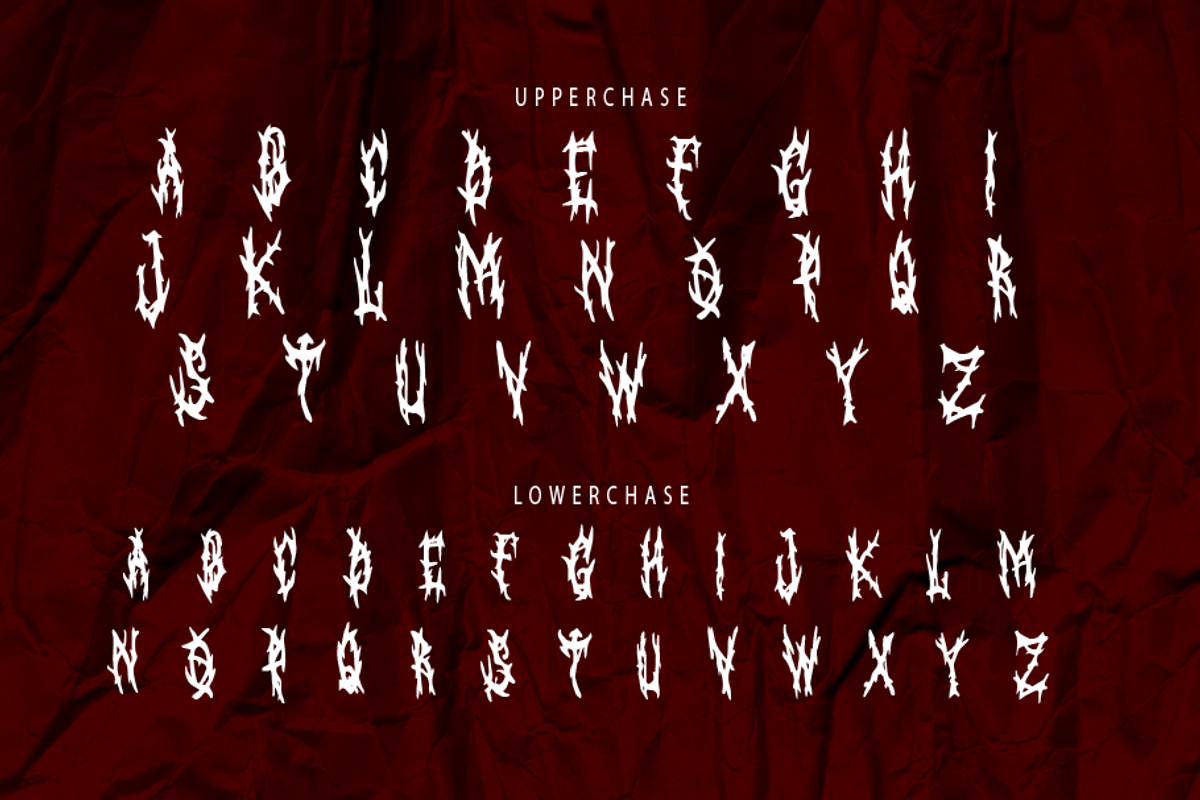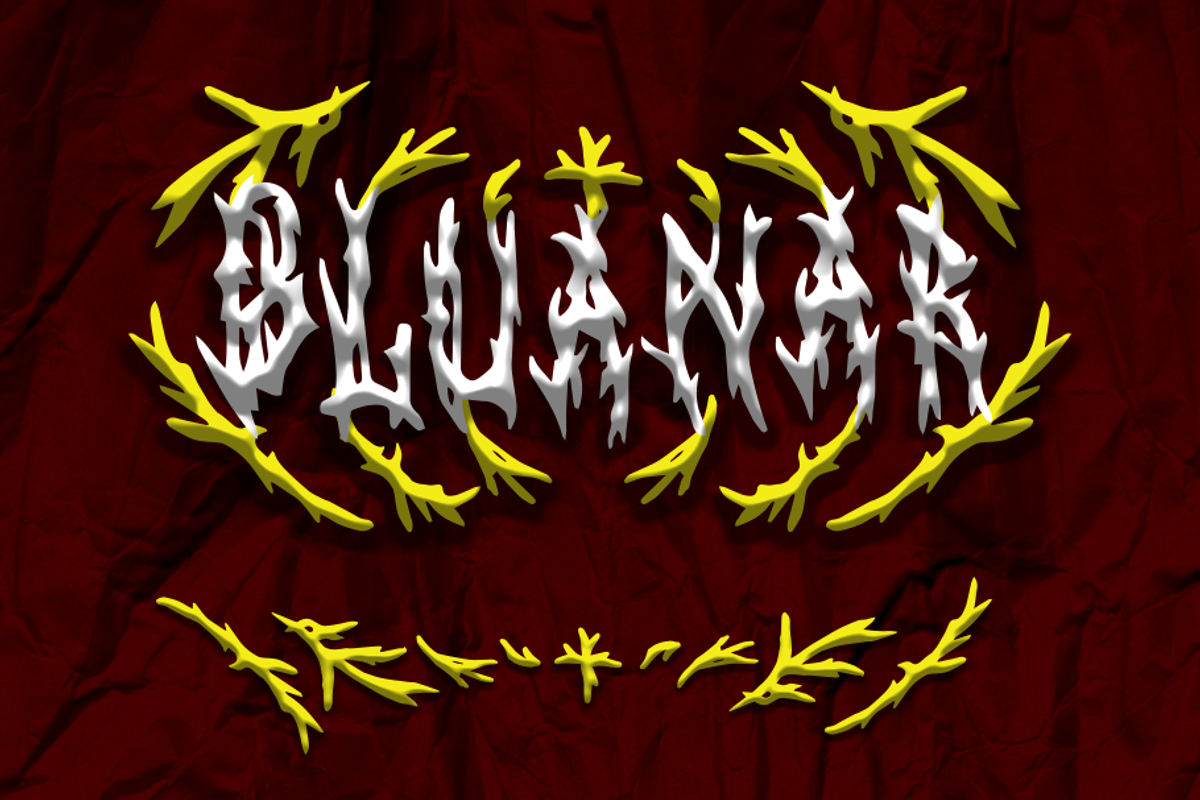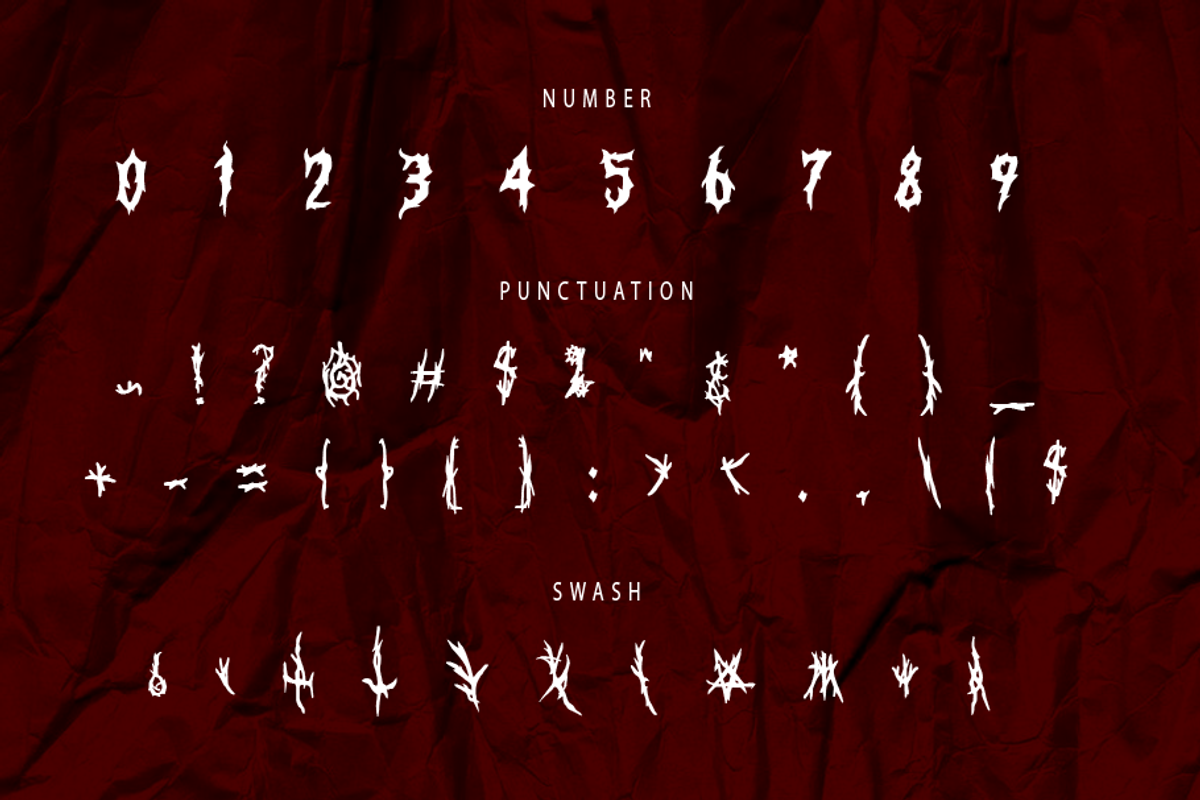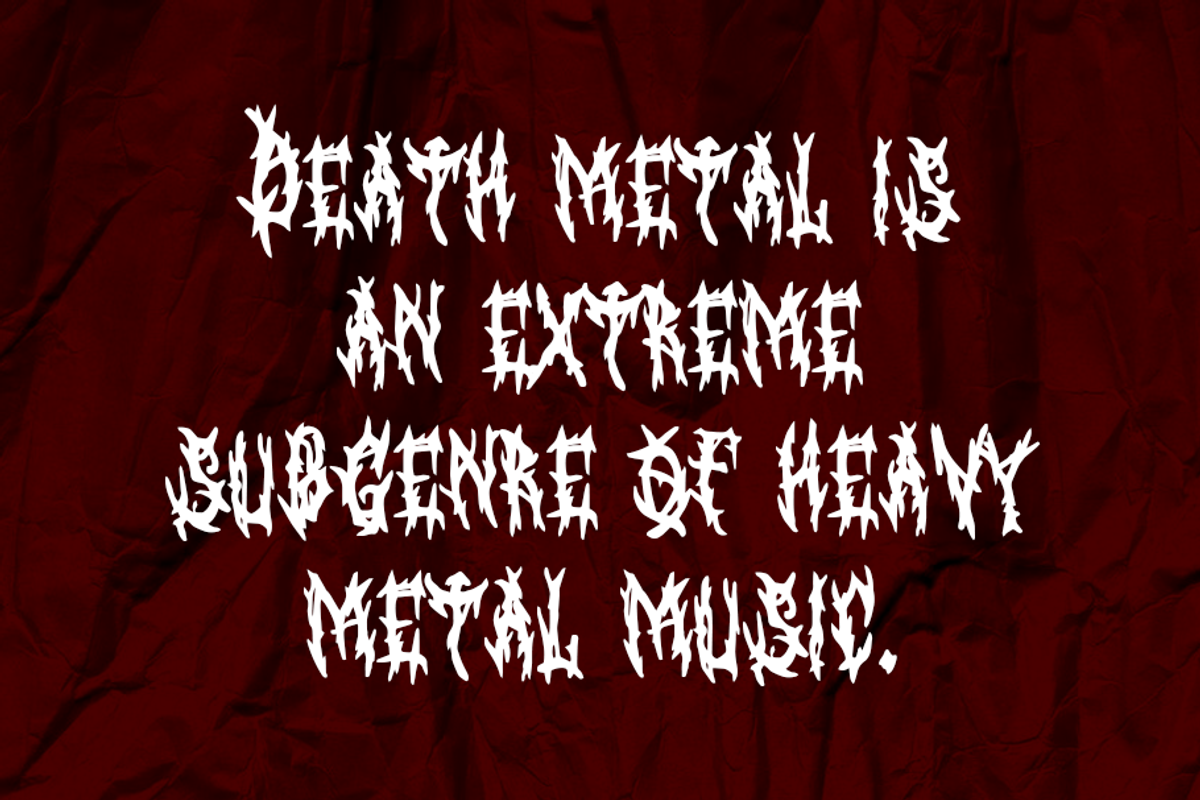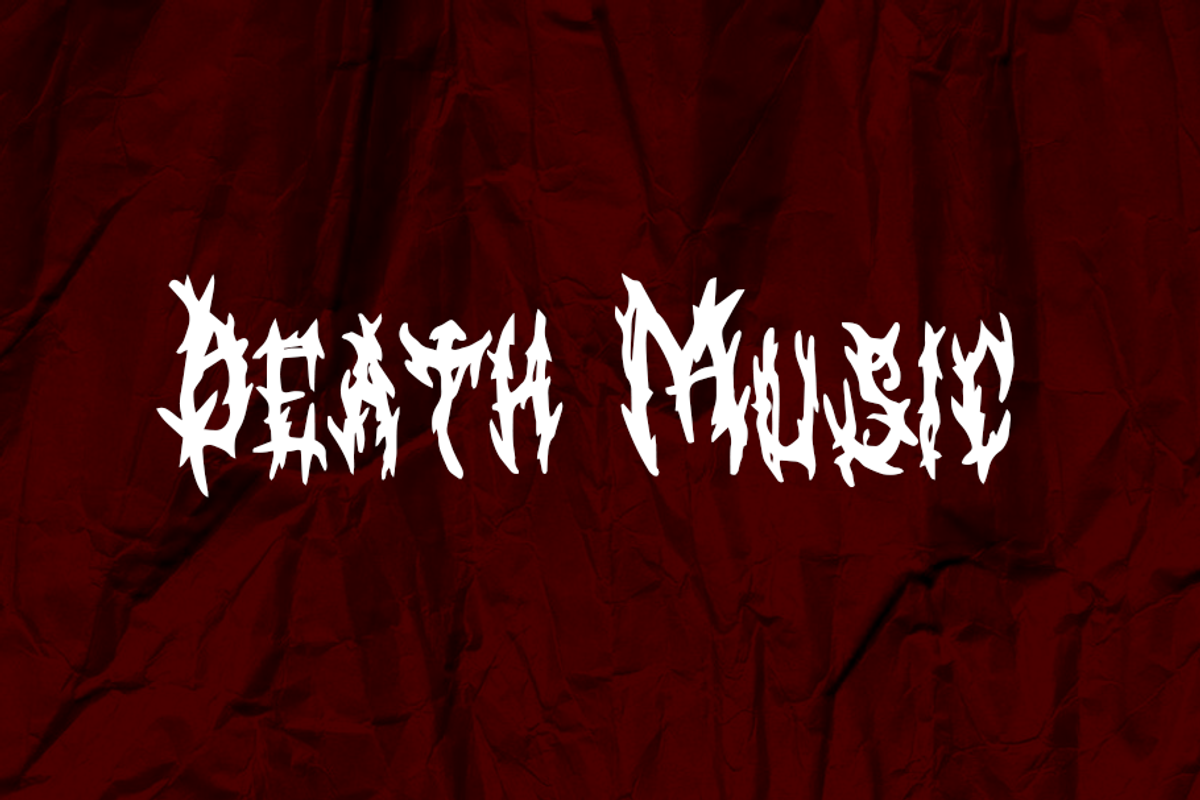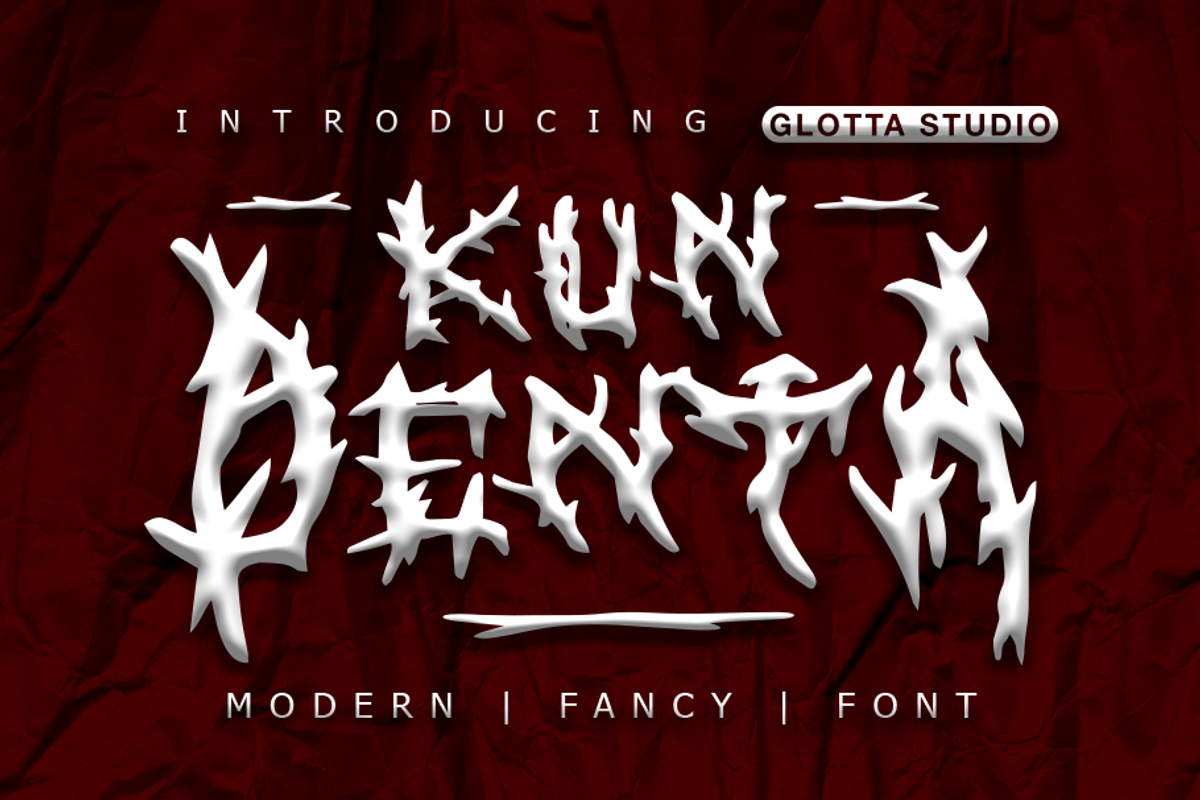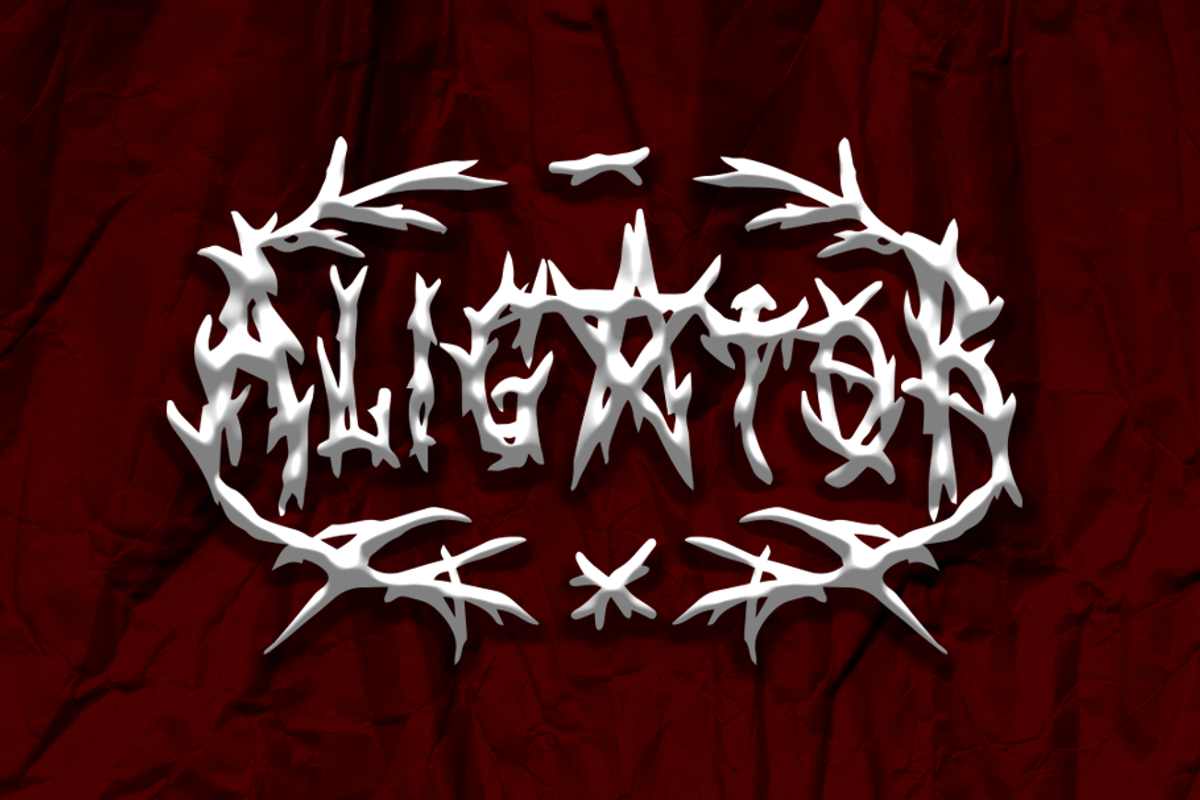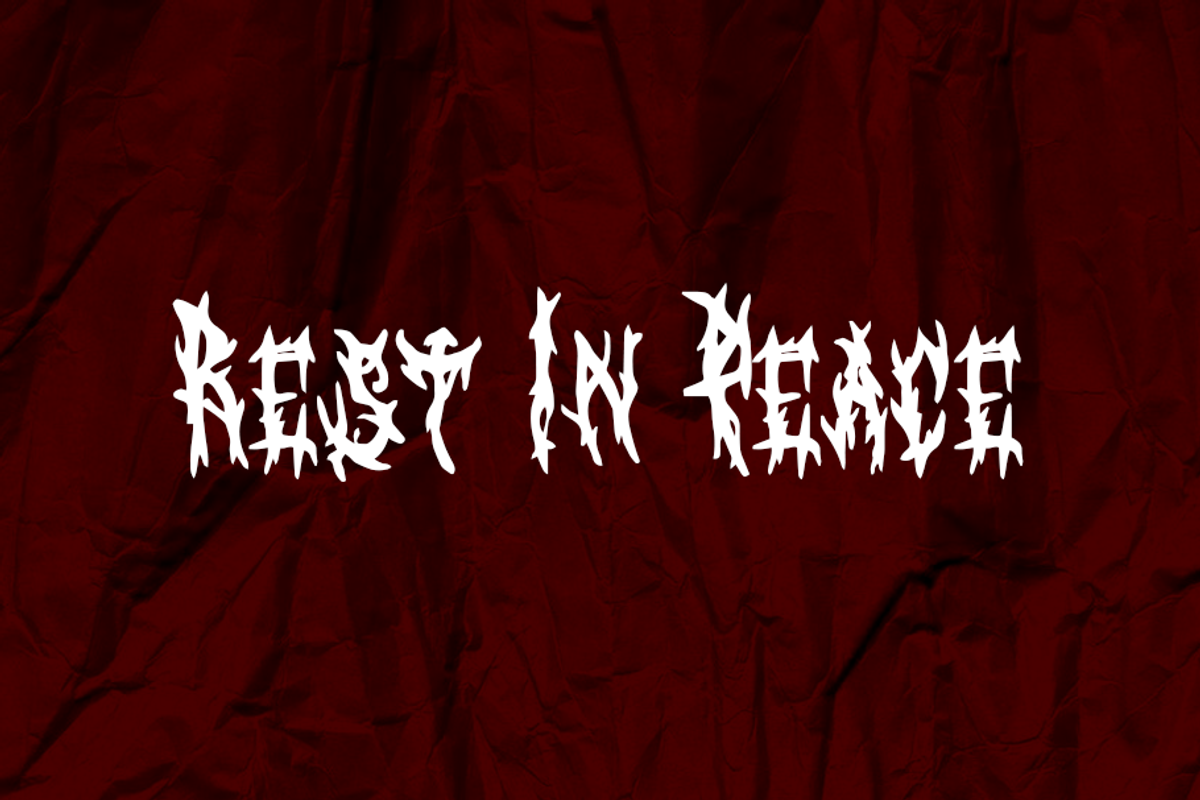
Kun-Denta
Kun-Denta is black metal font it’s looks old-school, classic, and easy to use. Kun-Denta is the great choice for watermark on movie industry, poster design, quotes, album cover, business card and many other design project. Kun-Denta is here to make your work or your business to high level!!! Features
- Numerals and Functional
- Alternate and ligature